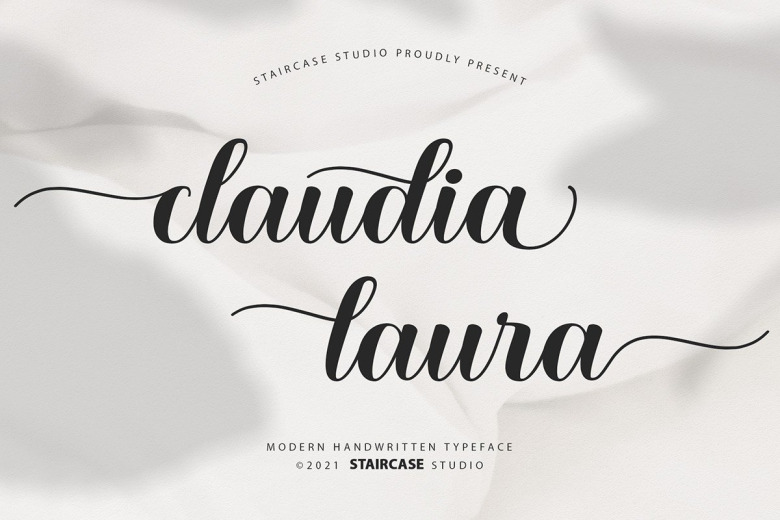
Claudia Laura Font
Claudia Laura Calligraphy Font is a modern script font manufactured by Staircase Studio. It’s a clean store with high contrast line. A collection of letters and numbers suitable your projects also great for Logotype, Branding Design, Logo Design, Digital Lettering Arts, T-Shirt/Apparel, Poster, Magazine, Signs, Advertising Design, and any design needs.